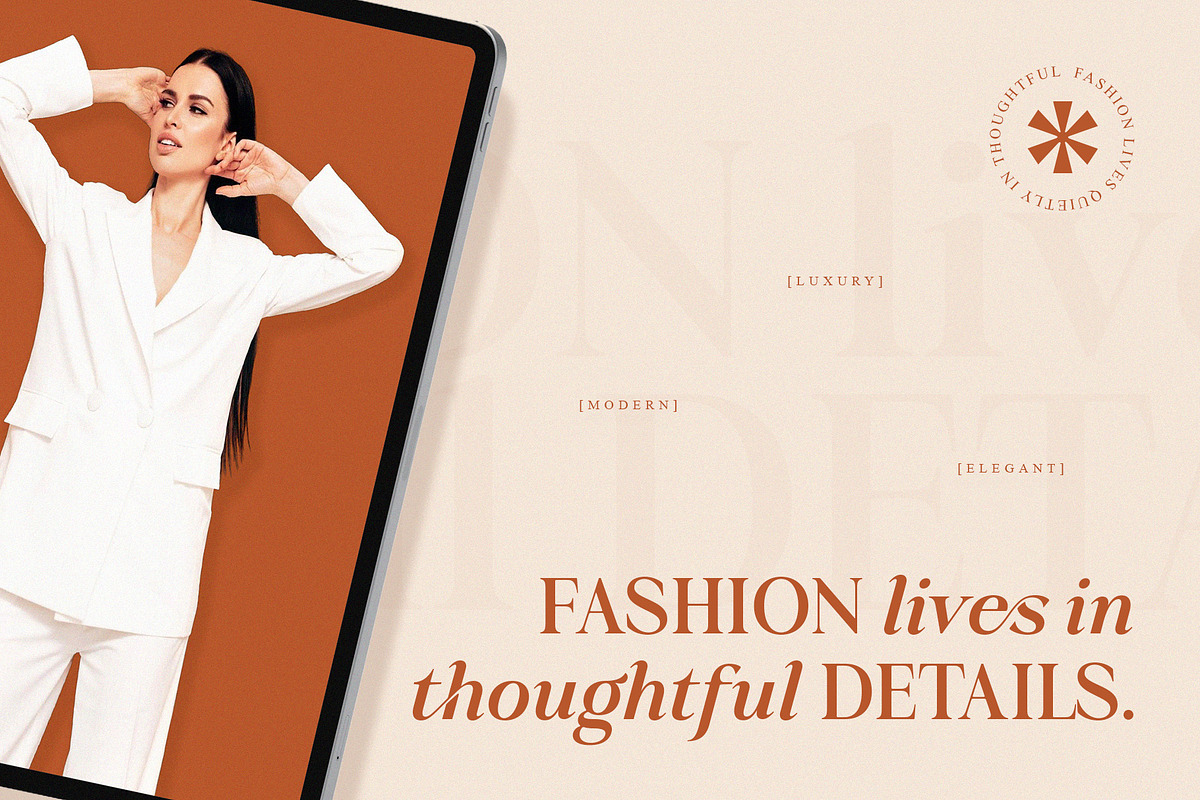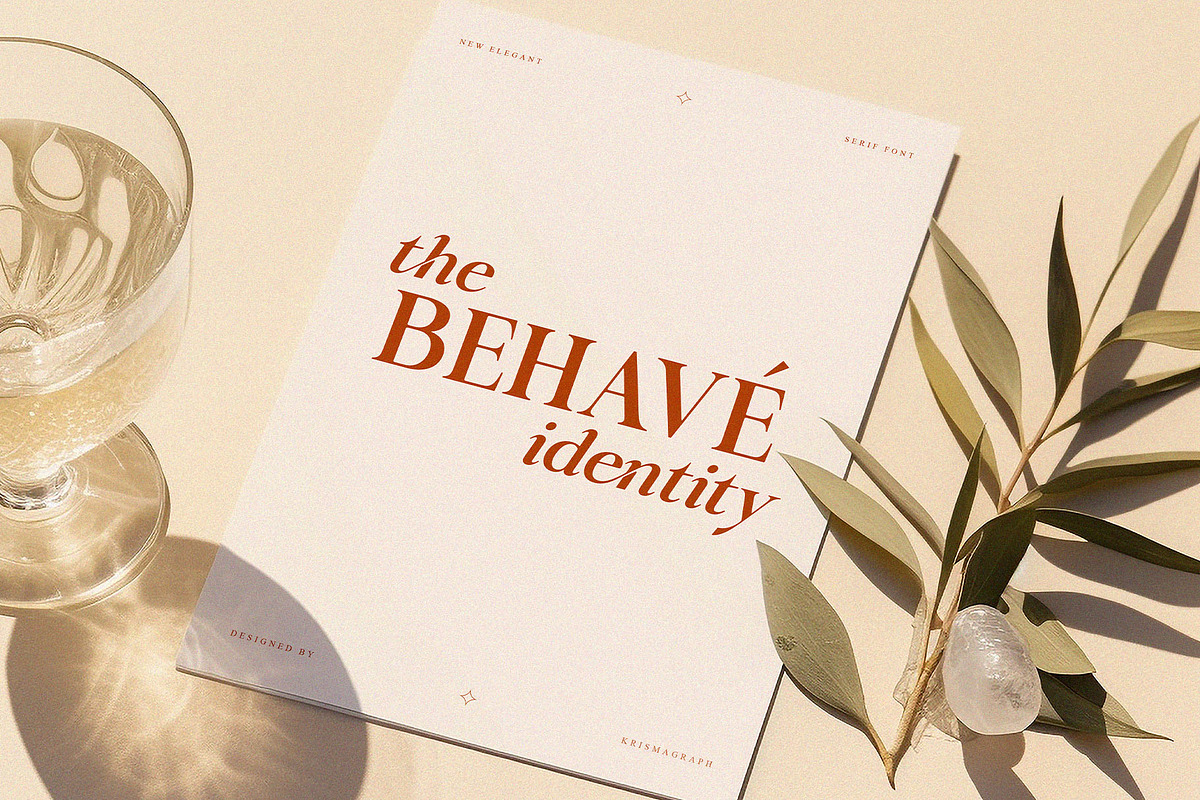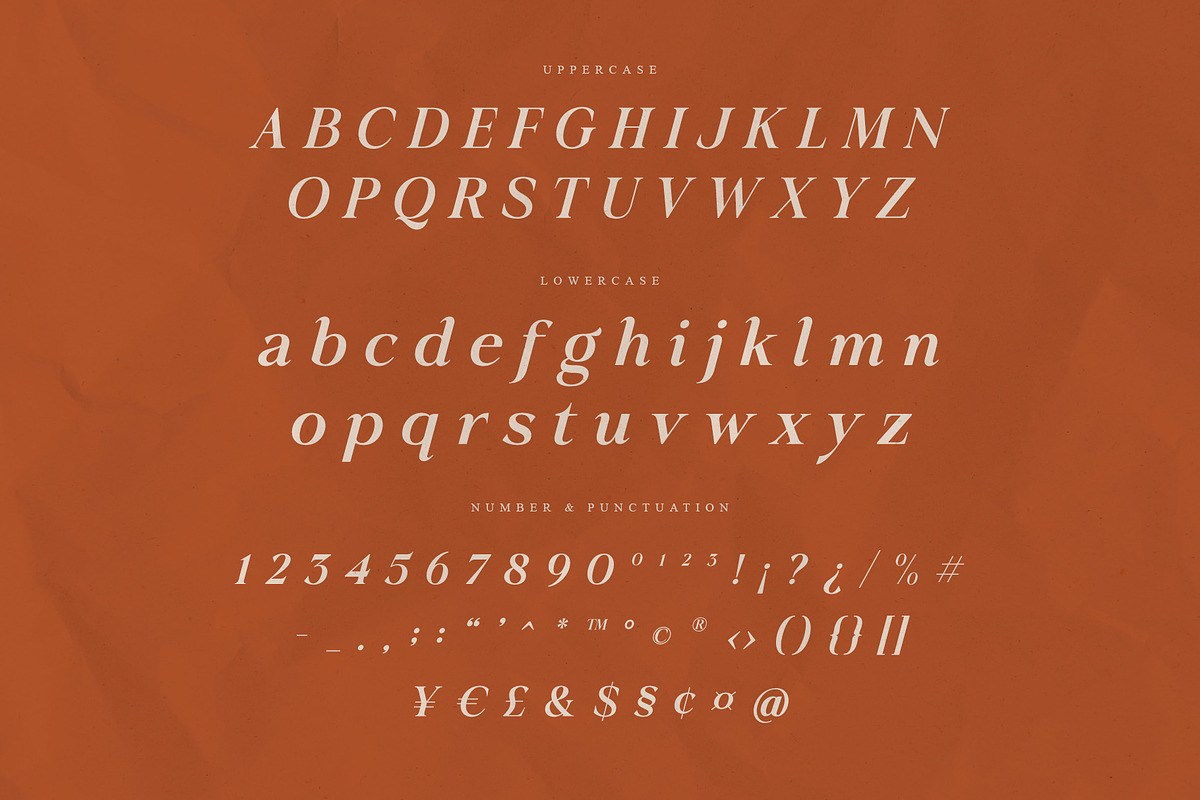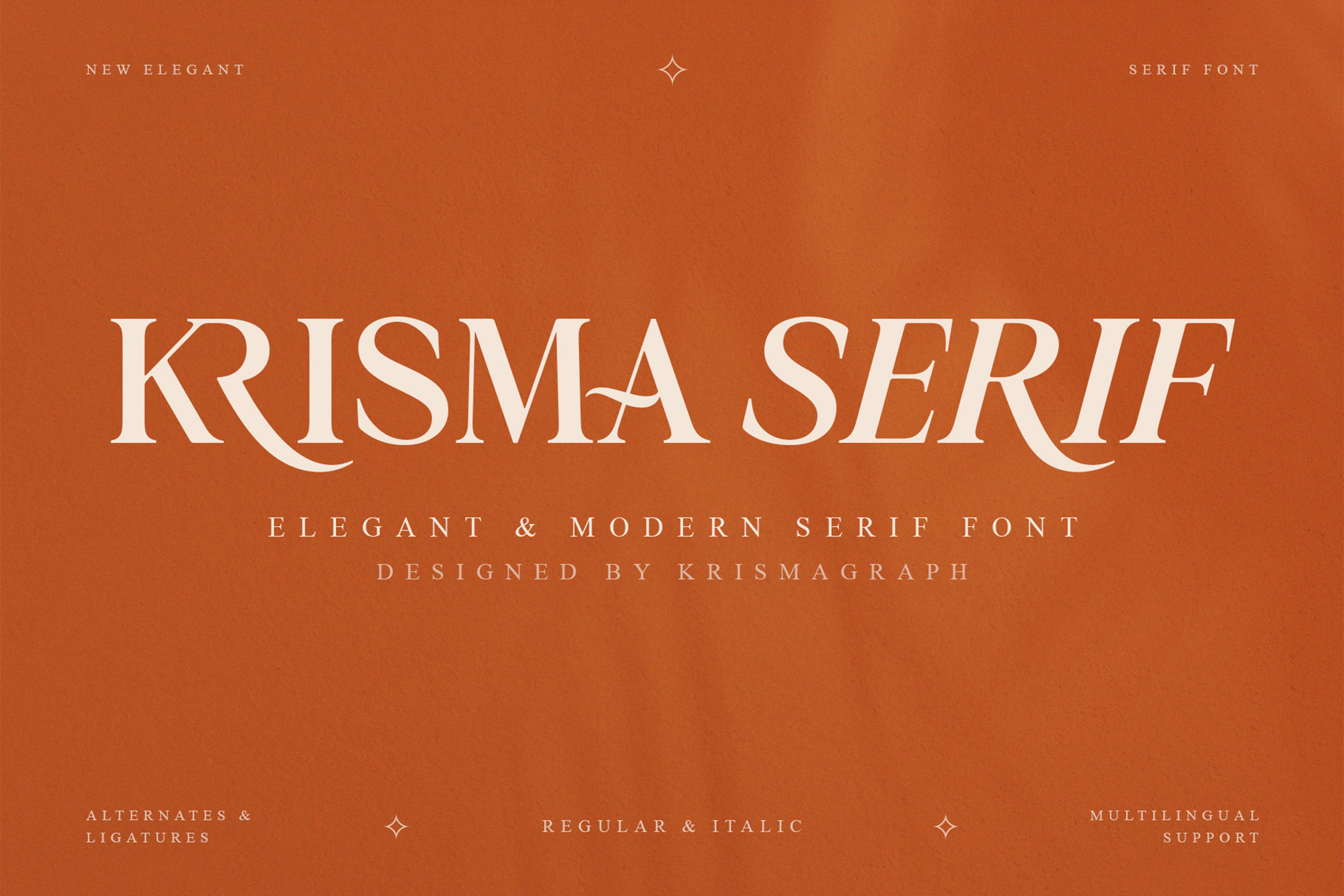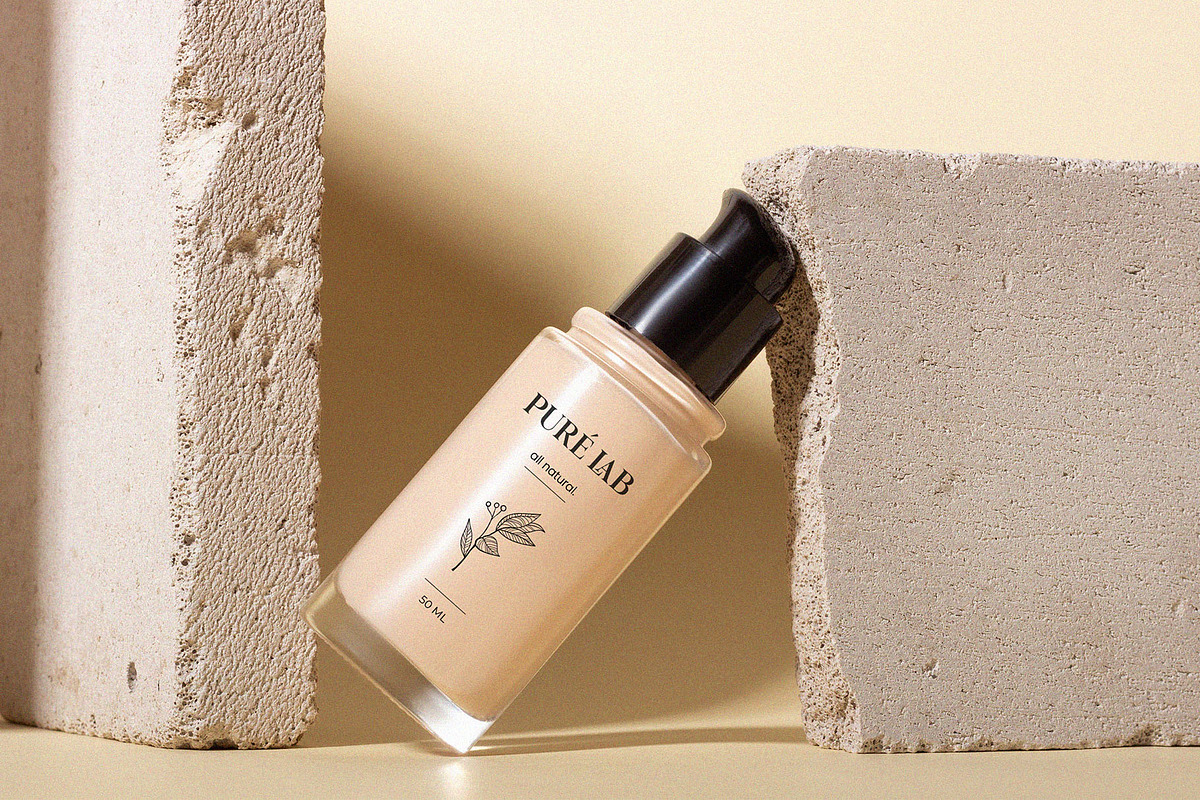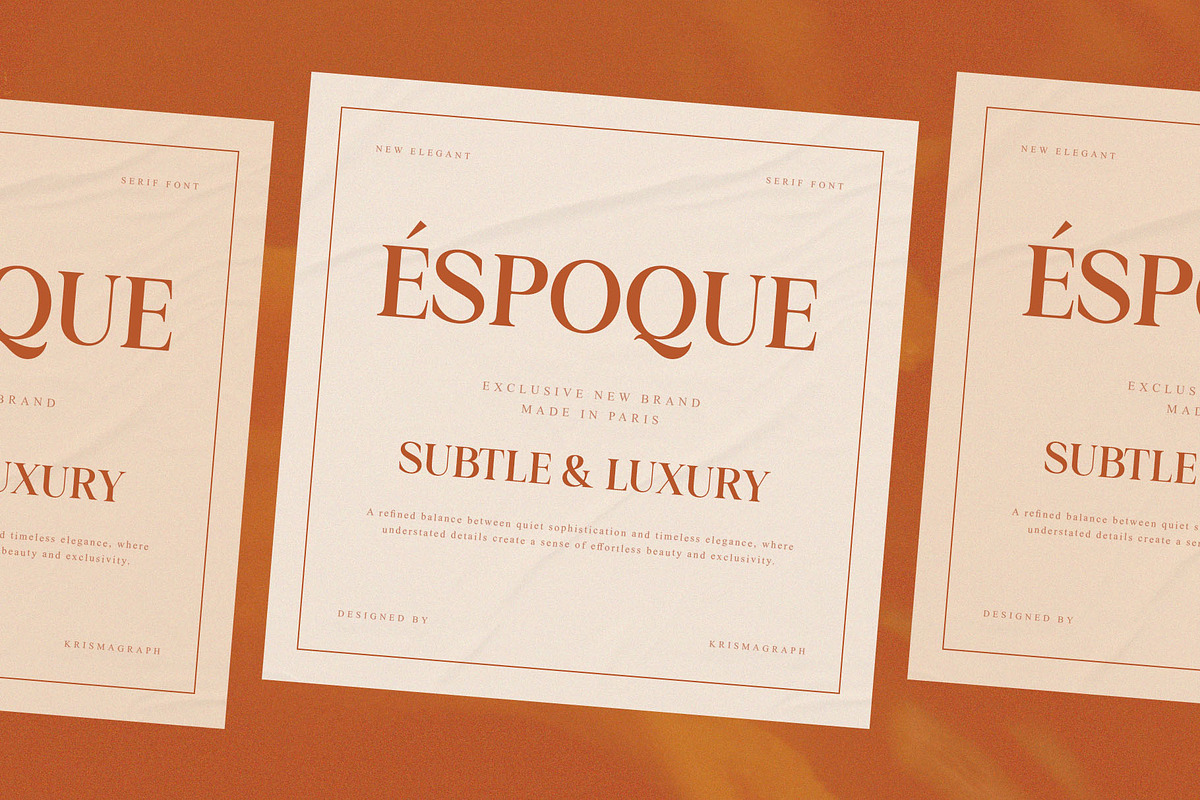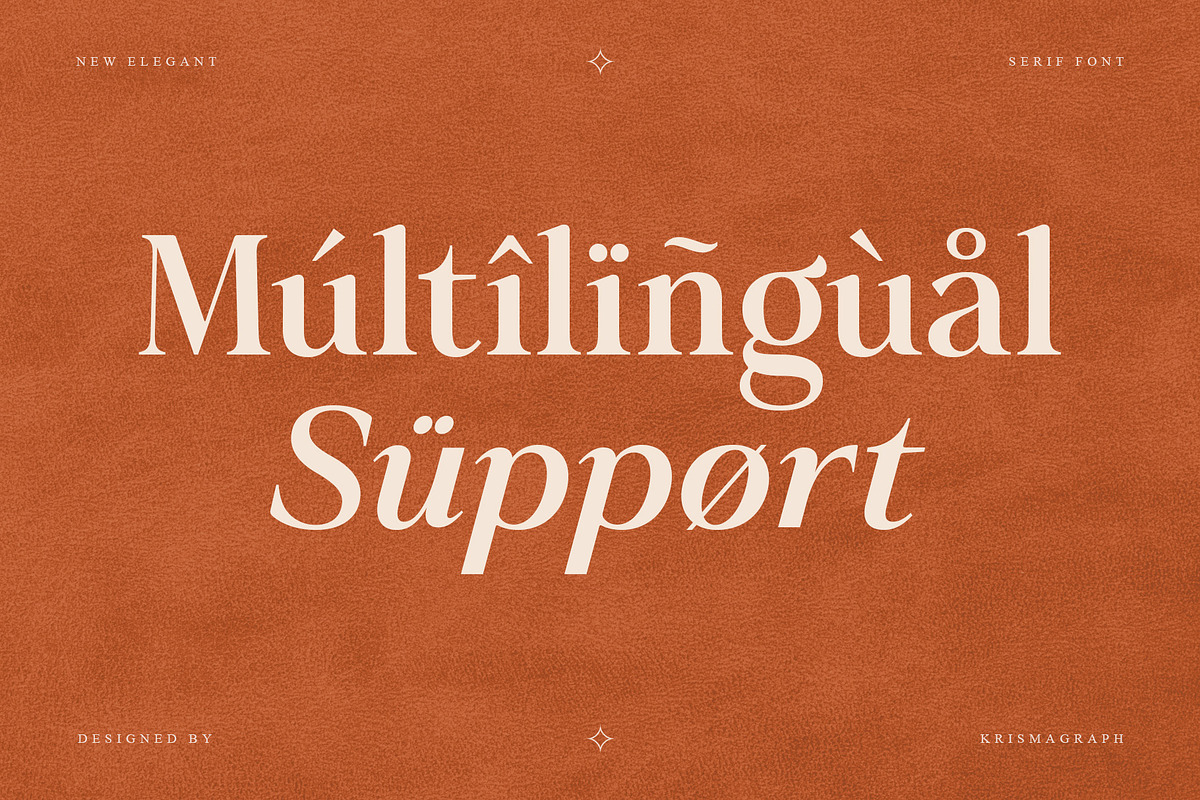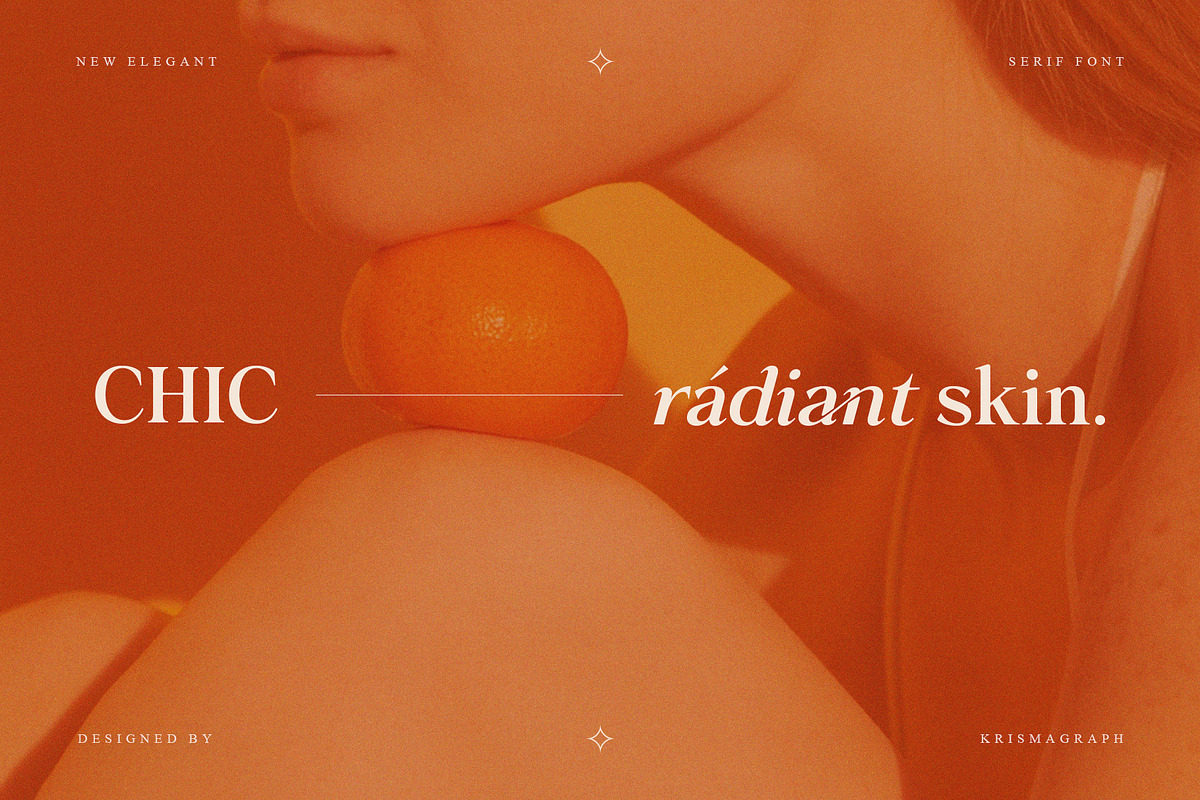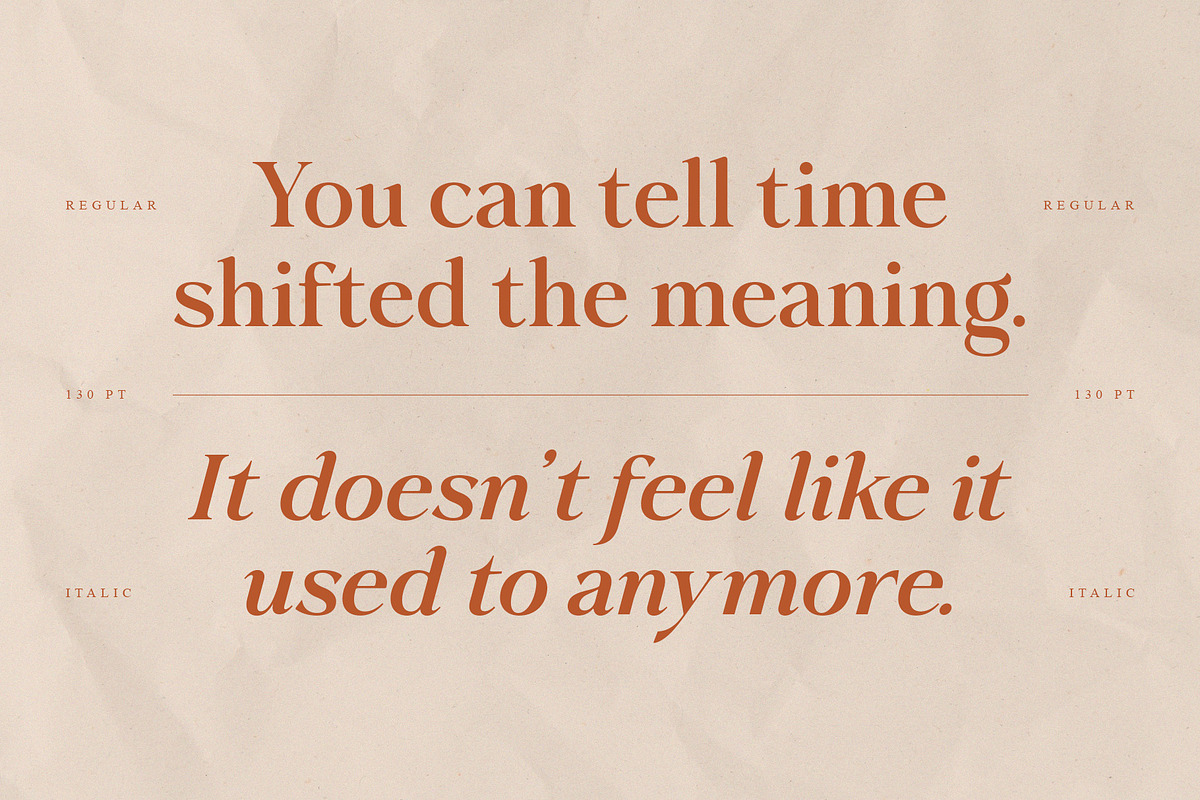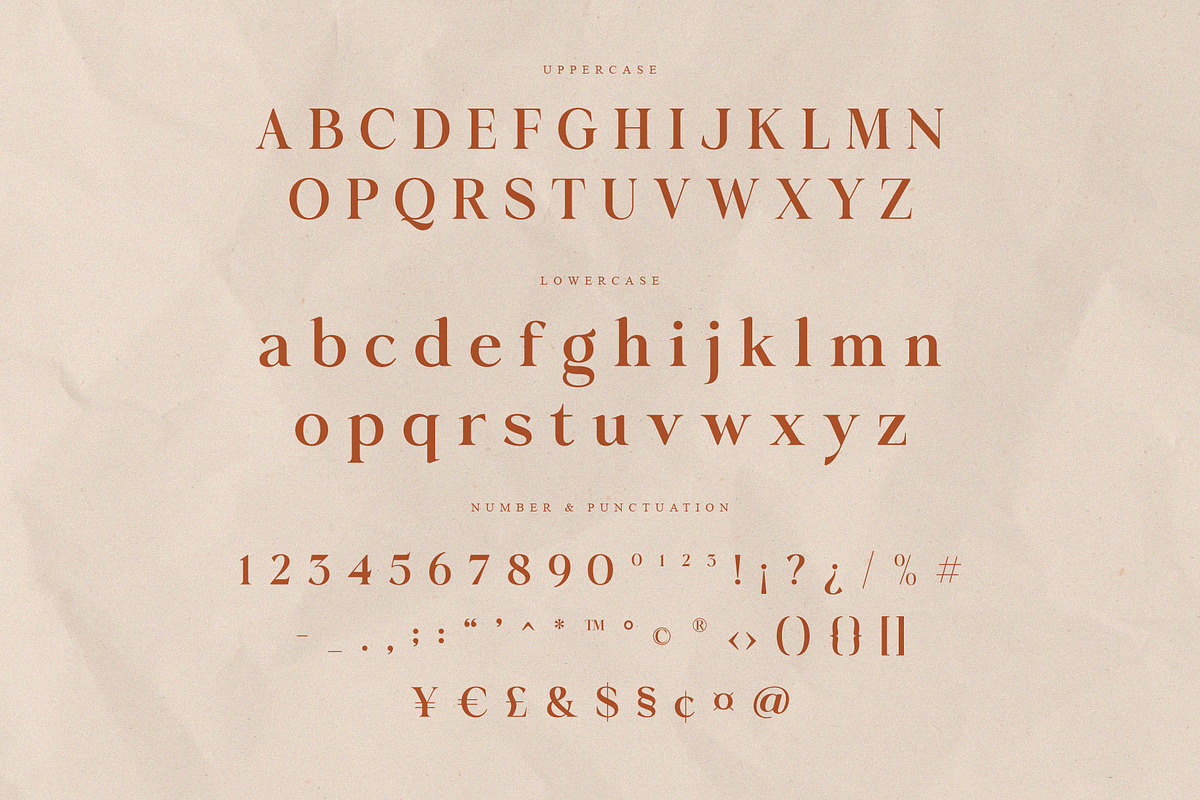
Krisma Serif | Ligarure Serif Font
**Krisma Serif **is a sophisticated high-contrast display serif font built for brands that demand attention. With dramatic thick-to-thin stroke transitions, refined swash terminals, and expertly crafted ligatures, this typeface strikes the perfect balance between classical elegance and contemporary sharpness.
Whether you're designing luxury brand identities, editorial layouts, premium packaging, wedding invitations, or high-end poster campaigns, Krisma Serif delivers a commanding typographic presence that is impossible to ignore. The regular and italic cuts provide expressive versatility, while alternates and multilingual support make it adaptable to a wide range of professional projects.
This is a font that speaks the language of sophistication — made for designers who refuse to settle for ordinary.
Regular & Italic styles
Alternates & Ligatures
Ideal for: branding, editorial, packaging, posters, invitations, luxury identity